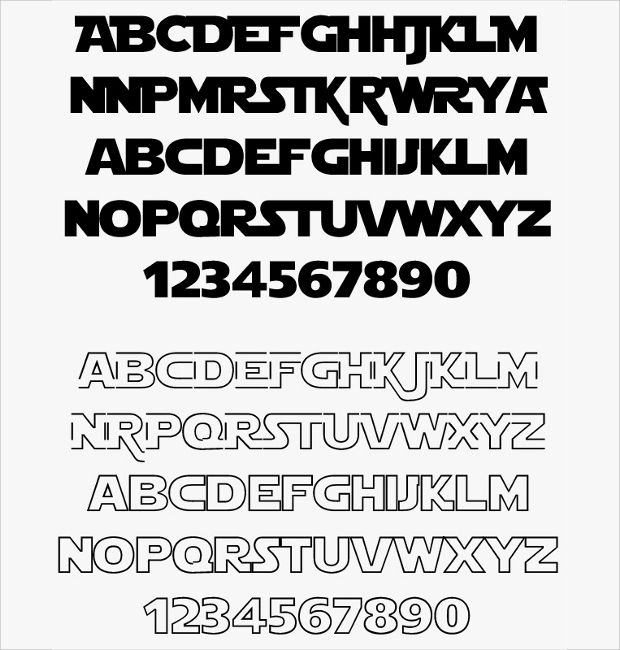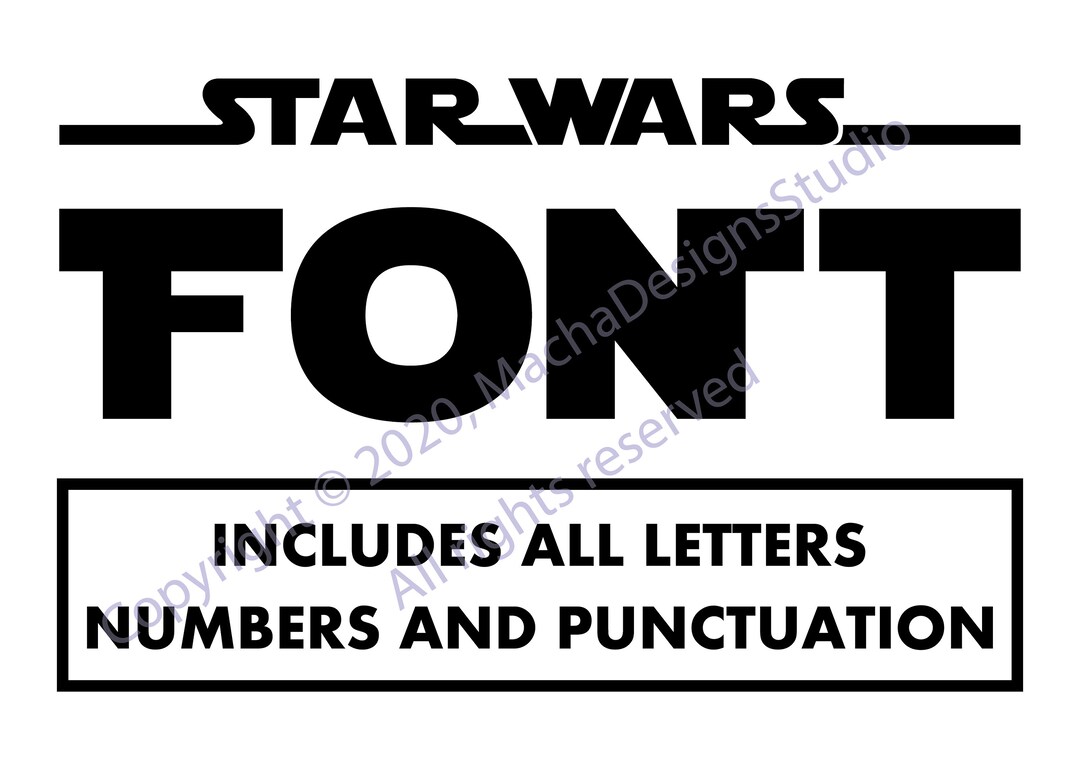
In a universe defined by epic battles and timeless storytelling, typography plays a vital role in capturing the spirit of Star Wars. A well-crafted star wars font template transforms text into legend, turning words into immersive experiences.
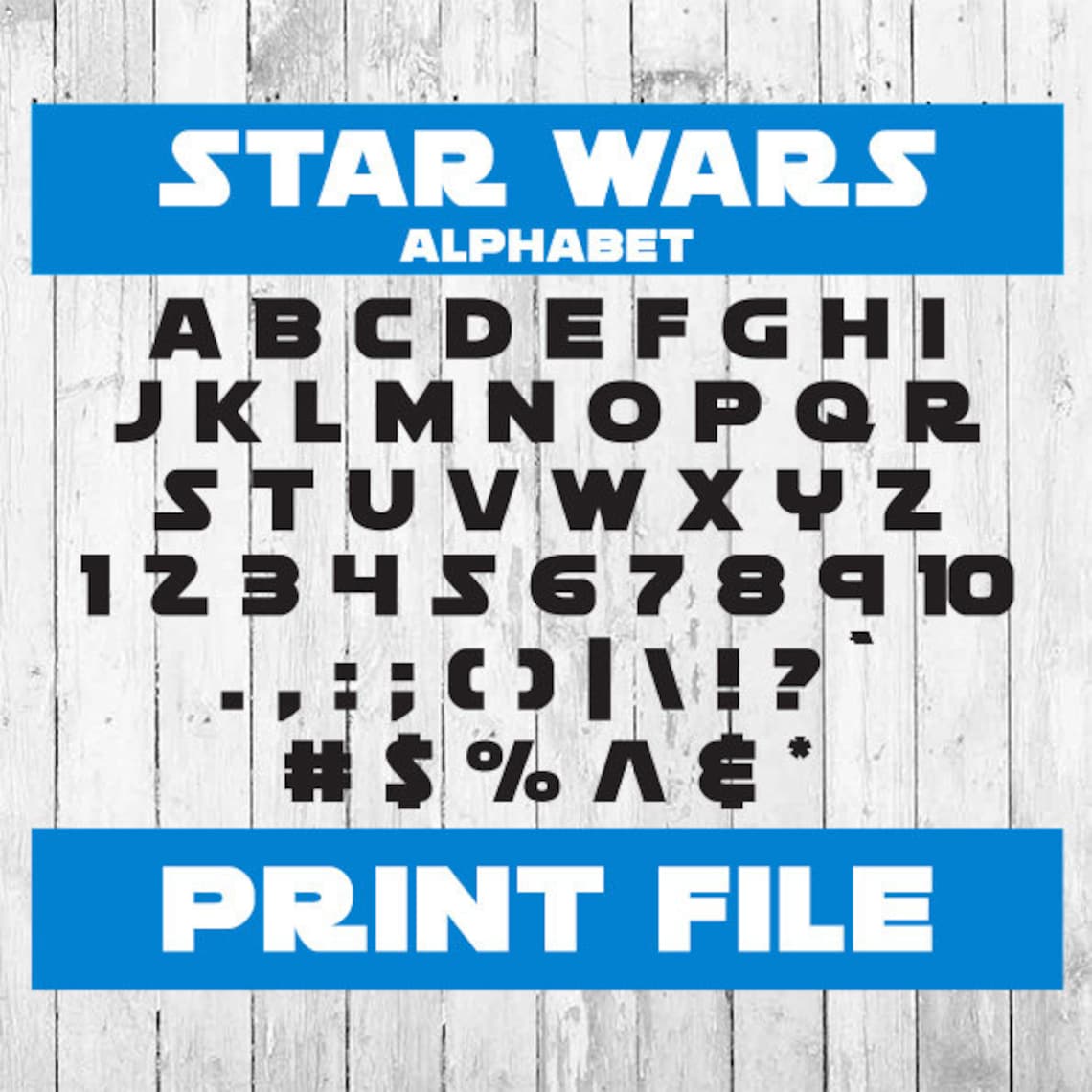
H2: Iconic Star Wars Font Template Essentials
Creating a true star wars font template requires more than bold letters—it demands precision, historical inspiration, and cinematic flair. From the angular sharpness of Imperial decrees to the flowing elegance of Jedi scrolls, each style reflects the galaxy’s diverse cultures. Modern digital tools allow designers to blend old-school typography with sleek, scalable fonts that work across apps, websites, and merchandise.
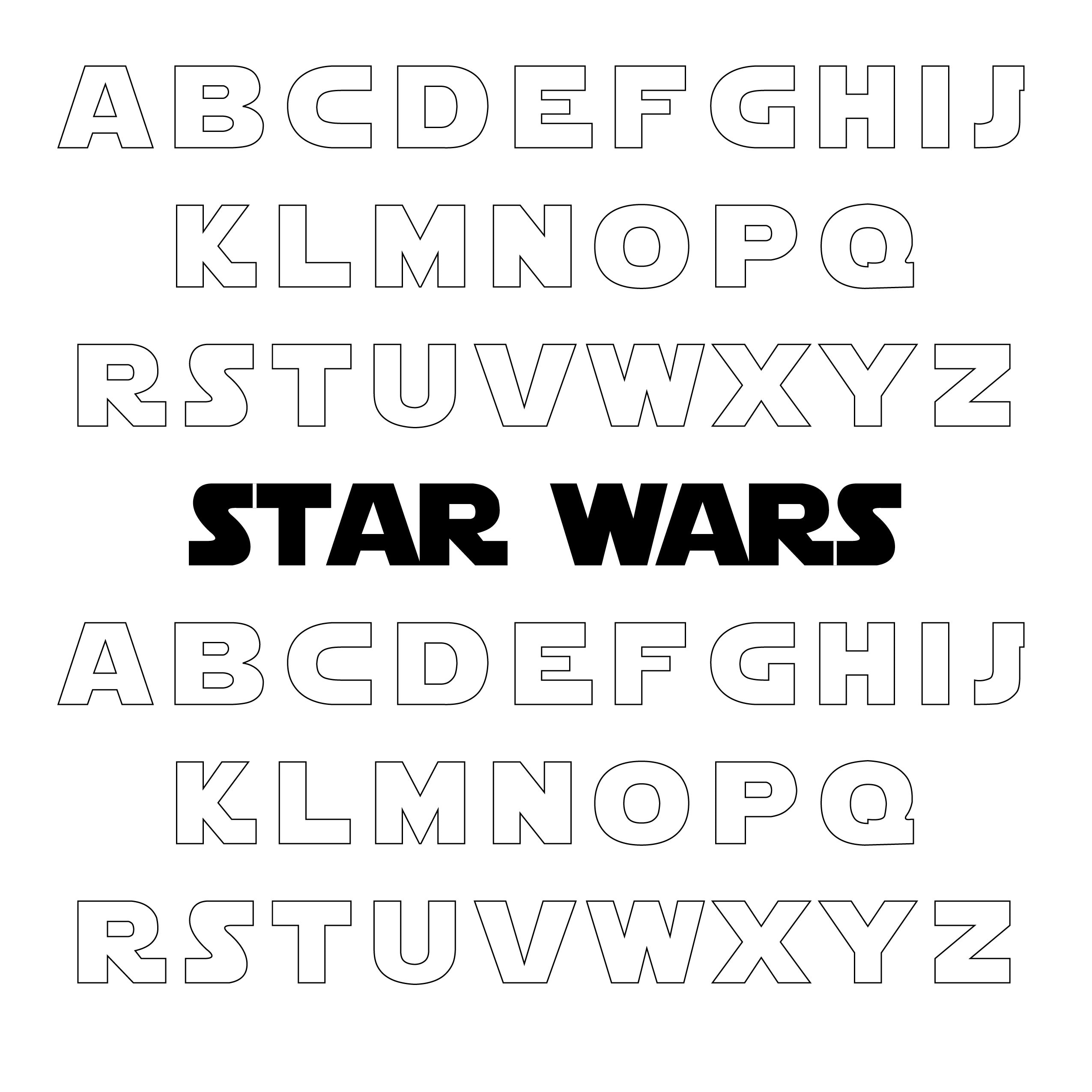
H2: Crafting Your Own Star Wars Typeface
Designing a star wars font template starts with studying original source materials like the Blue Series and Imperial scripts. Focus on distinctive features: sharp serifs for authority, open counters for clarity, and balanced proportions for readability. Use vector-based software like Adobe Illustrator or FontLab to build glyphs with attention to detail, ensuring consistency across characters. Incorporating subtle texture or shadow effects enhances the mythic tone, making text feel as if forged in Coruscant’s laboratories.
H2: Best Practices for Using Star Wars Font Templates
Once created, star wars font templates shine in diverse applications—from fan films and graphic novels to branding and digital art. Pair them with thematic fonts like star destroyer battle cries or Jedi council decrees for cohesive visual storytelling. Always optimize file formats (OTF, TTF, WOFF) for cross-platform compatibility. Licensed templates empower creators to unleash creativity without compromising quality, turning imagination into tangible, galactic-class design.
H2: Elevate Your Projects with Authentic Typography
Whether you're designing a movie poster, a custom avatar, or a limited-edition mug, a carefully crafted star wars font template brings authenticity and depth. Let your audience feel the weight of history with every letter. Explore premium templates or master the craft yourself—your galaxy awaits.
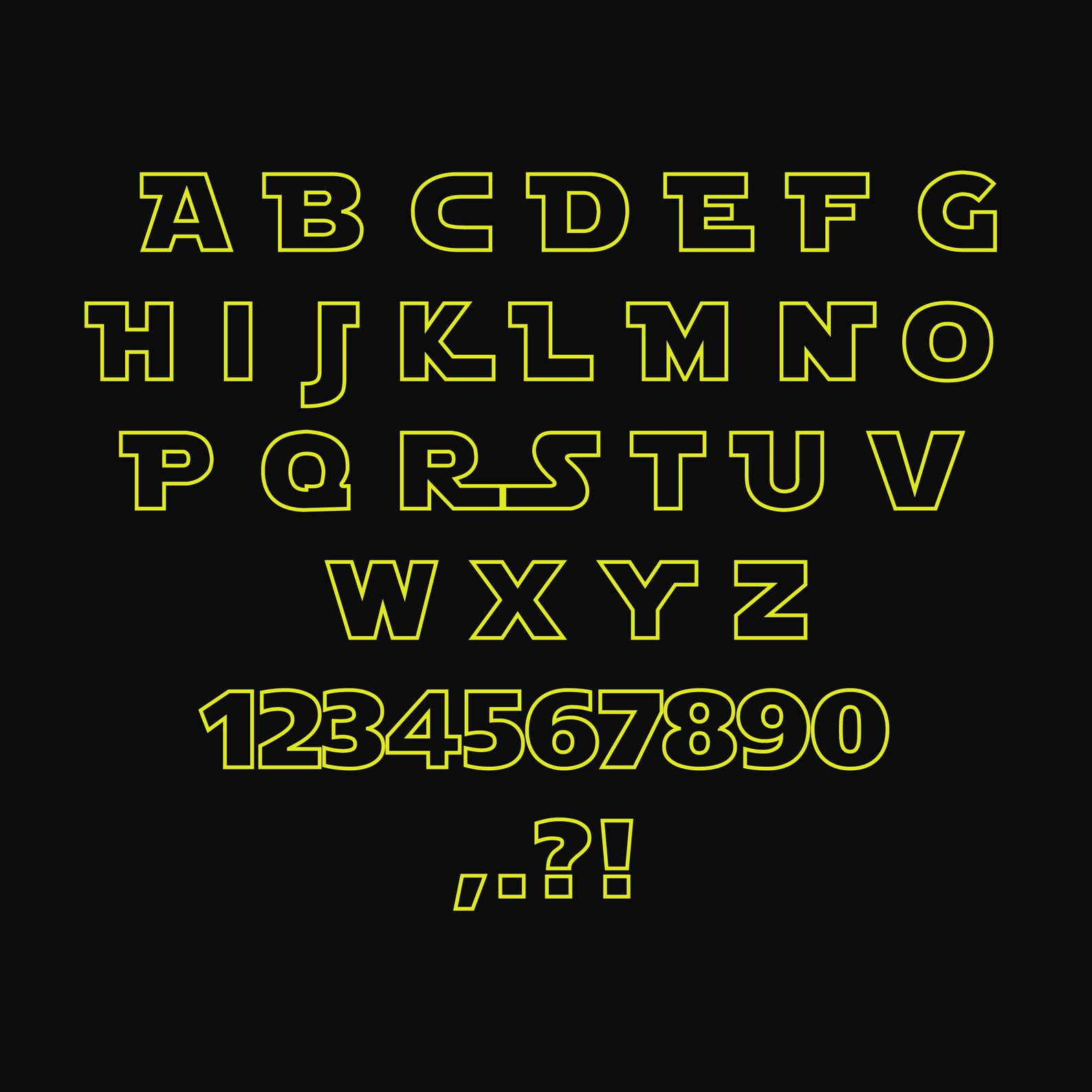
With the right star wars font template, your designs transcend the ordinary and step into legend. Elevate your storytelling, captivate fans, and create typography that resonates across time. Begin your creative journey today—where every font speaks the language of the stars.